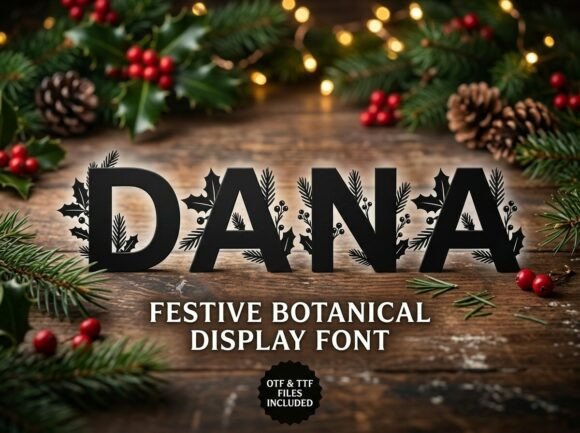
Wrap Your Digital Canvas in Winter Wonder with Dana Font
As designers, we’ve all been there – stuck on a project, struggling to find the perfect font to capture the essence of a season. I recall working on a holiday card for a client, wanting to convey the warmth and magic of winter, but my font choices felt flat and uninspiring. That’s when I discovered Dana, a festive holiday font that instantly brought my design to life.
The Perfect Blend of Bold and Whimsical
Dana is more than just a font – it’s an experience. This bold, geometric display font is specifically designed to spread seasonal cheer, breaking away from plain block lettering to create a cozy celebration on your digital canvas. The true architectural signature of Dana lies in its beautiful negative-space accents: hand-drawn holly leaves and clusters of winter berries that sprout gracefully from the outer contours of every clean, solid letter stem.
What I Love About Dana Font
- ✨ Unique and festive design: Dana’s holly leaves and winter berries add a touch of magic to any design.
- ✅ Excellent legibility: The font’s clean lines and bold geometric shape make it easy to read, even at smaller sizes.
- 🎉 Versatile: Dana is perfect for corporate or family holiday cards, winter party invitations, seasonal merchandise branding, Christmas boutique logos, and festive social media marketing titles.
While Dana is an exceptional font, there are a few things to keep in mind:
- ⚠️ Limited use cases: Dana is a display font, so it’s best used for headlines and titles rather than body text.
- 🤔 Glyph limitations: While Dana has a range of glyphs, it may not have every special character or symbol you need.
The Story Behind Dana Font
Dana was designed with the intention of capturing the warmth and magic of the winter season. The font’s creator wanted to craft a unique and festive display font that would bring joy to designers and their clients. With its beautiful negative-space accents and bold geometric shape, Dana is sure to become a favorite among designers.
| What is Dana font best used for? | Dana is perfect for corporate or family holiday cards, winter party invitations, seasonal merchandise branding, Christmas boutique logos, and festive social media marketing titles. |
| Does Dana have any special features? | Yes, Dana features a range of glyphs, stylistic alternates, and OpenType features that allow for advanced typographic control. |